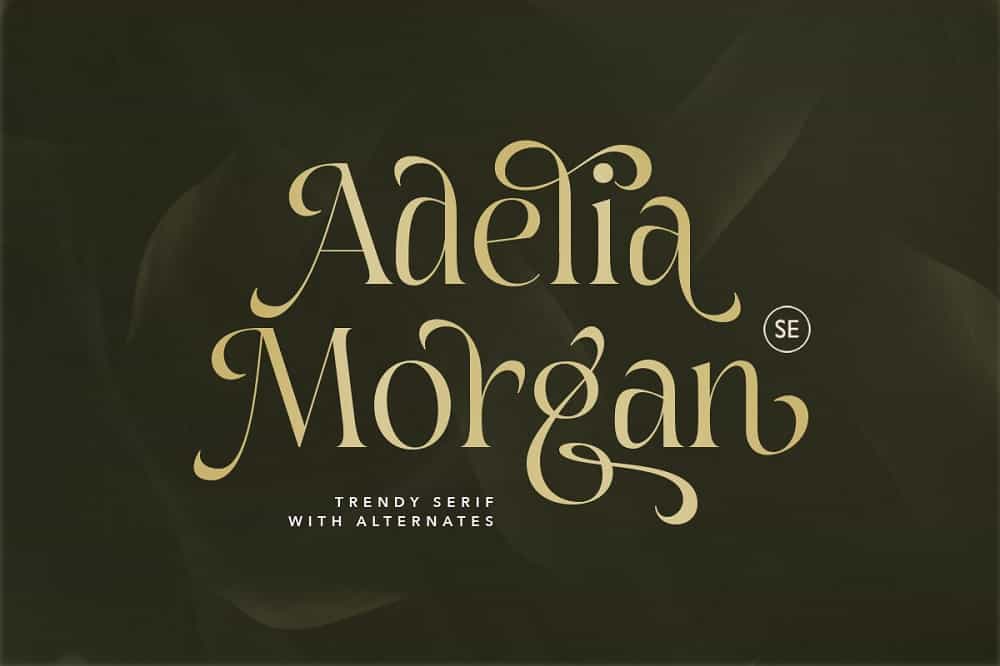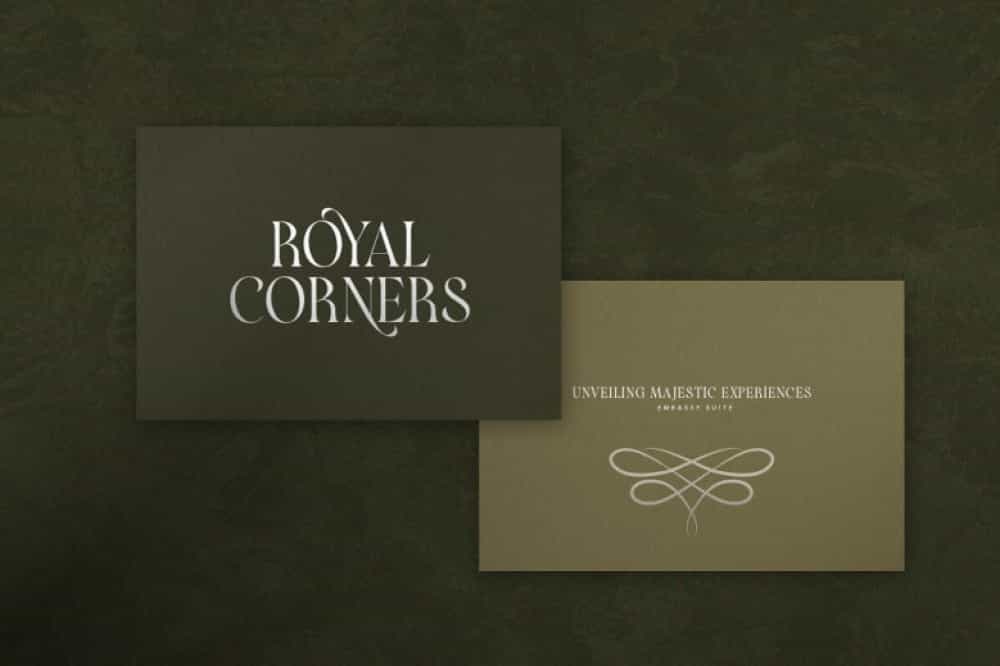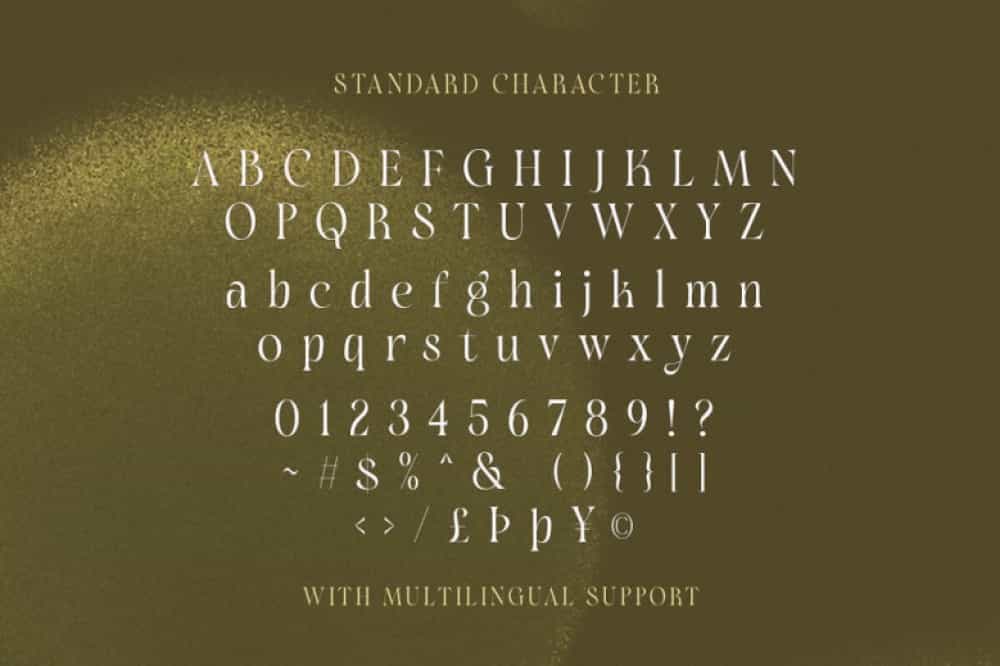
Adelia Morgan is a contemporary serif font with many alternates for each character that will help to bring your project or logo to life. It can be used in a variety of ways for instance in creating wedding invitation, for branding or even your own company logo.